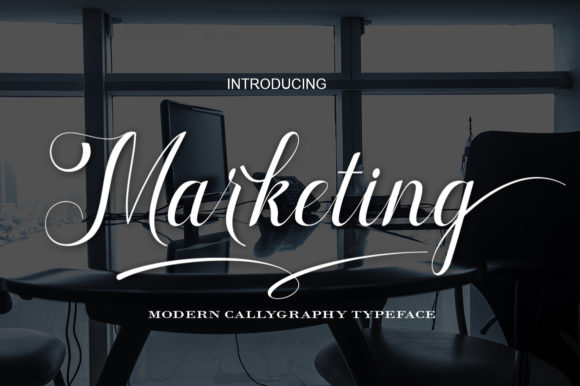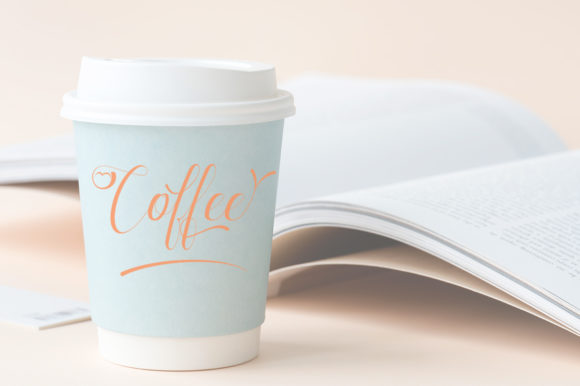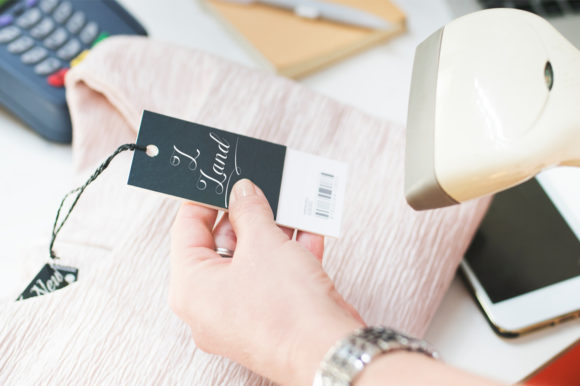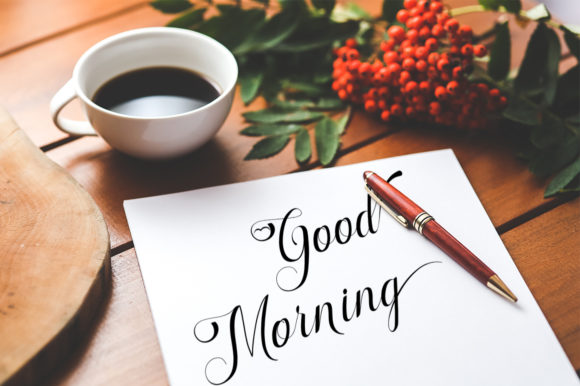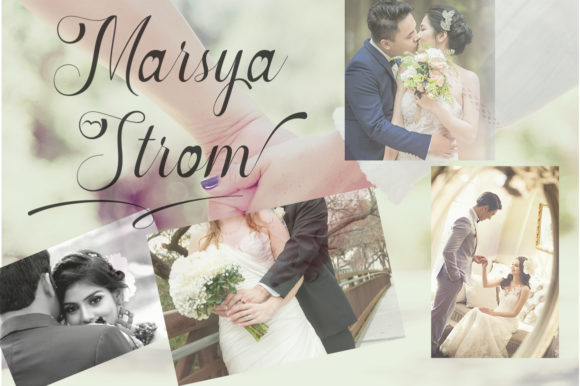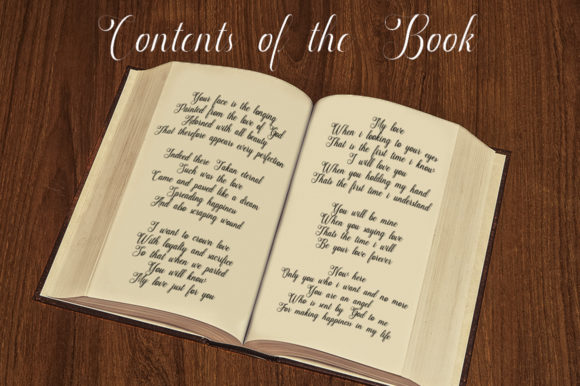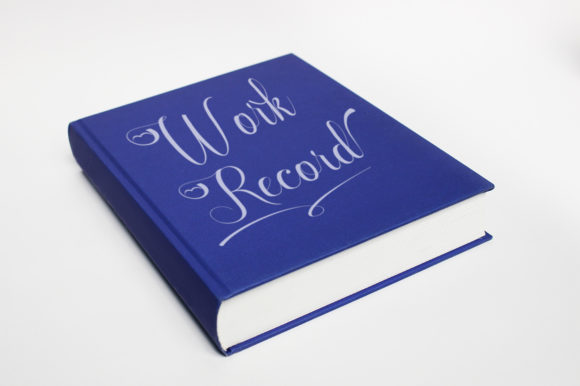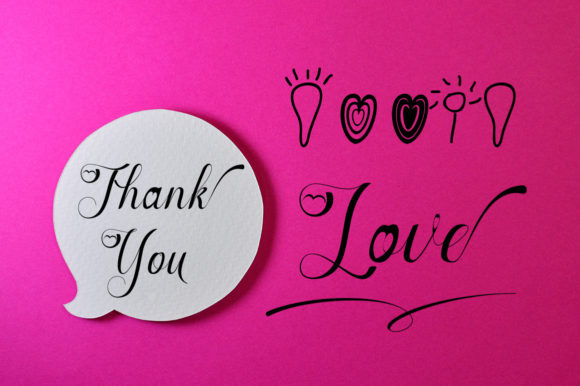
Marketing Font
About Marketing Font
The Marketing is a modern script font with handmade calligraphy. It has decorative characters and a dancing lineage.
It can be used for invitations, greeting cards, branding material, business cards, quotes, and much more!